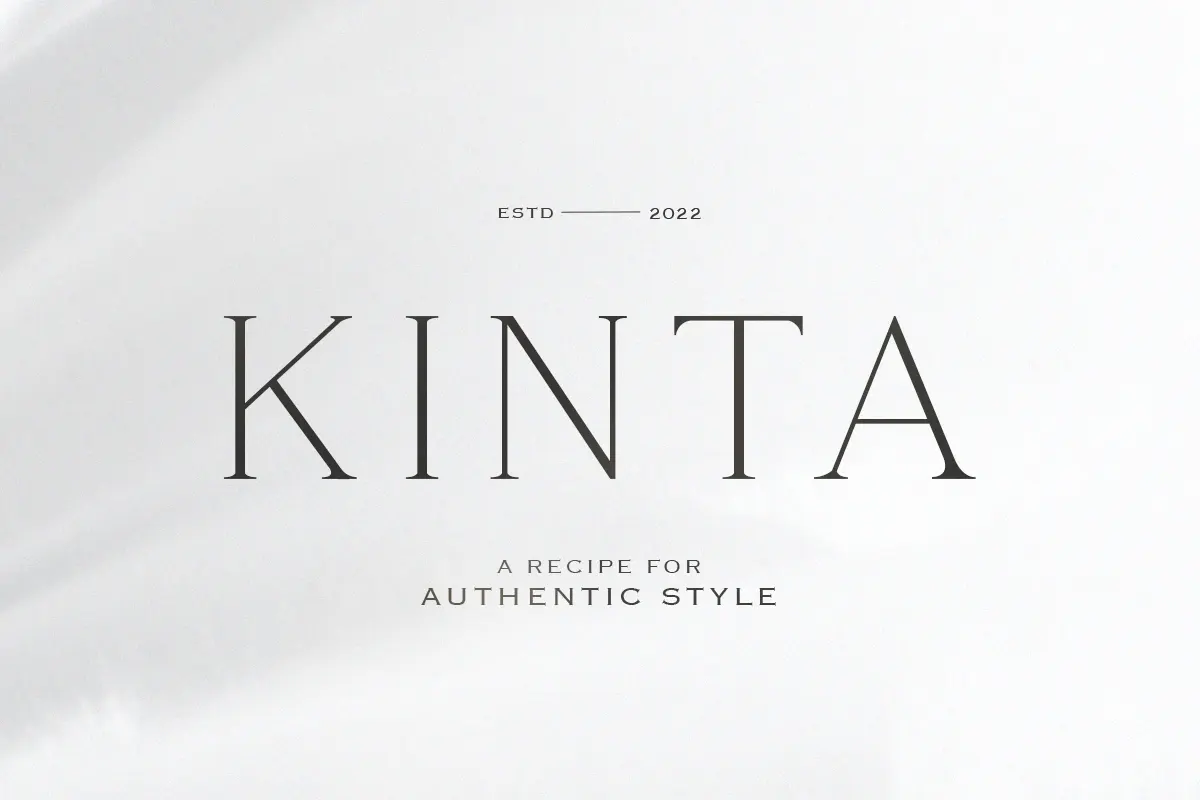
Kinta - Authentic Serif Font Free Download is a timeless and elegant serif typeface designed to bring sophistication and authenticity to your designs. Featuring sharp serifs and a balanced, classic structure, this font is perfect for branding, editorial work, logos, invitations, and any project that requires a refined and professional look.
The Kinta font combines modern and traditional elements, offering excellent readability while maintaining a unique, stylish appearance. Whether you're working on a luxury brand, editorial layouts, or high-end marketing materials, Kinta provides a sense of elegance and strength to your typography.
Add elegance and authenticity to your designs with the stylish Kinta font!